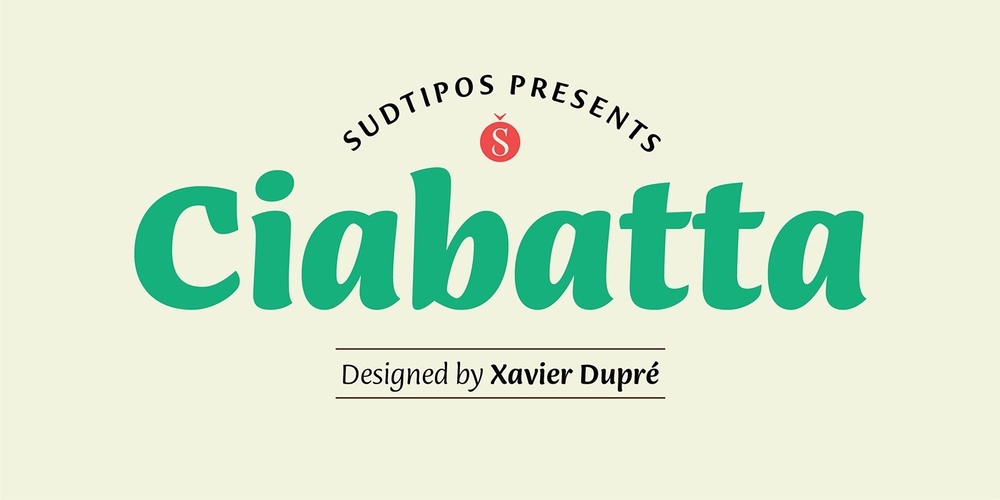
Ciabatta Font
Ciabatta Font is perfect for Italian restaurant branding, artisan bakery signage, authentic culinary magazines, rustic food packaging, traditional trattoria menus, farm-to-table communications, organic food labels, Mediterranean cuisine marketing, artisanal bread company materials, and authentic Italian cultural projects.
What makes Ciabatta Font so exciting is its delicious embodiment of Italian culinary heritage and artisanal bread-making tradition that captures the warm, rustic charm of authentic Italian cuisine through lovingly crafted typography. This appetizingly designed typeface features organic letterforms with handcrafted proportions and artisanal character variations that immediately convey authenticity, warmth, and the irresistible appeal of traditional Italian craftsmanship. The font's rustic construction and culinary aesthetic create an instant sense of Italian hospitality and artisanal quality, making it ideal for projects that need to communicate authentic Italian culture, culinary excellence, and the soul-warming power of traditional food culture to audiences seeking genuine Italian experiences and meaningful culinary connections.
The Ciabatta Font family typically includes multiple artisanal weights and rustic styles, often featuring light, regular, and bold variations along with naturally flowing italic versions. Italian-inspired font collections frequently offer additional culinary elements such as food symbols, traditional ornaments, and Mediterranean decorations that enhance the authentic Italian aesthetic and provide designers with comprehensive tools for creating genuinely cultural and gastronomically appealing communications.
The culinary nature of Ciabatta Font makes it particularly effective for targeting demographics that value authentic food experiences and traditional Italian culture in their dining and lifestyle choices. Food marketers and hospitality professionals will find this font especially valuable for materials that must establish immediate culinary credibility and connect with audiences seeking authentic Italian experiences and meaningful cultural gastronomy.
What sets Ciabatta Font apart is its ability to convey rustic authenticity while maintaining the warmth necessary for effective hospitality communication. This balanced characteristic makes it suitable for both traditional Italian applications and contemporary fusion contexts where projecting cultural authenticity and maintaining modern appeal must work together harmoniously.
Professional designers recognize that Ciabatta Font brings invaluable Italian credibility to projects across industries including food service, culinary tourism, artisan food production, and cultural hospitality. Its rustic character and culinary appeal make it essential for organizations whose mission centers on preserving Italian food culture, promoting authentic cuisine, and creating meaningful connections between traditional cooking and contemporary dining experiences.
The carefully crafted culinary authenticity of Ciabatta Font ensures consistent Italian messaging across all food-focused communication applications while honoring the fundamental importance of traditional craftsmanship in Italian culinary culture.